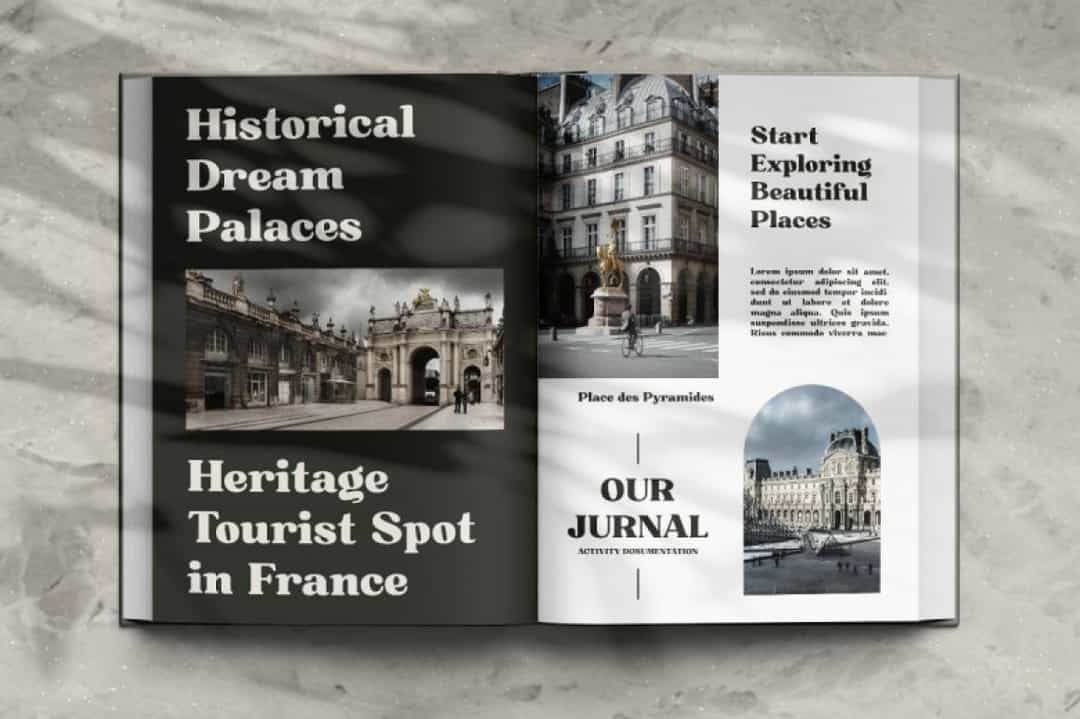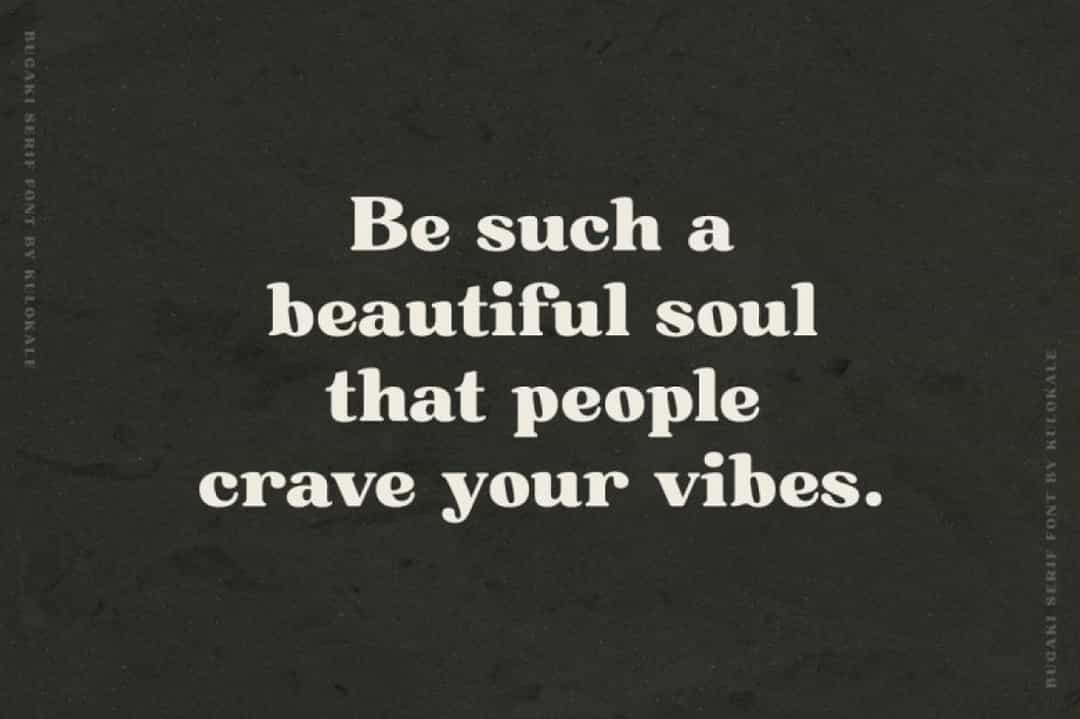
Discover Bugaki Font, part of the Serif Basic collection—a versatile and unique font perfect for adding a personal touch to your projects. Download it for free and enjoy crafting designs with style, from invitations to social media posts. This font is available exclusively for personal use, giving you the freedom to create without limits. Unlock your creativity with Bugaki Font today!
Bugaki can be used in logo and branding designs, advertising packaging designs, headlines and titles and even for editorial designs.